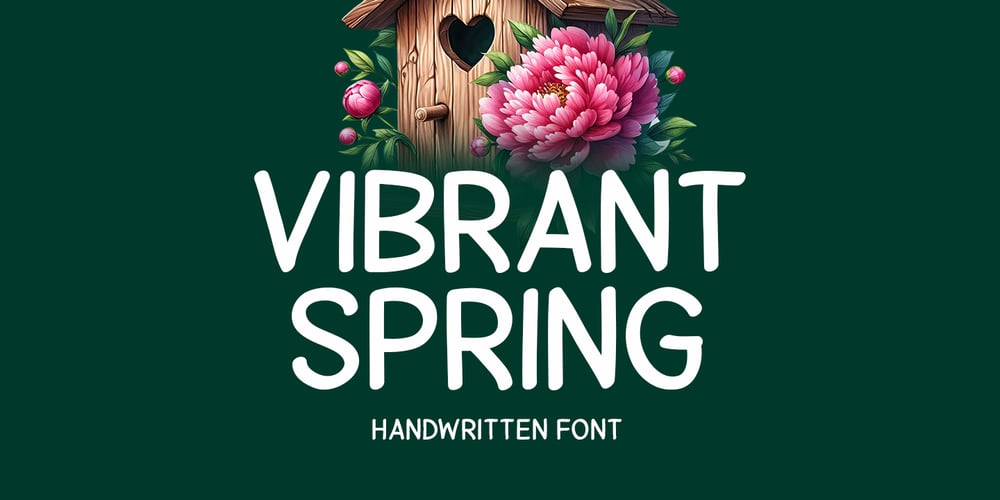
Vibrant Spring Font Family was designed by Md Shohail Bhuian and published by Seemly Fonts. Vibrant Spring contains 1 styles and family package options. Vibrant Spring is a beautiful handwritten font that exudes the vibrancy of spring. You can embrace the vivacious spirit of the season. Its remarkable versatility easily elevates a wide range of projects to make them stand out from the crowd. When you give your creative projects this artistic touch, you’ll see how your ideas take on new life and visual appeal.–Uppercase